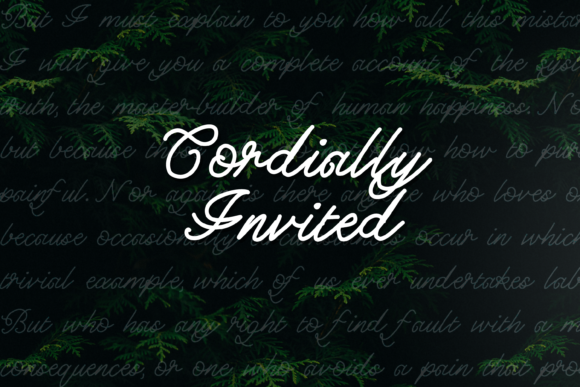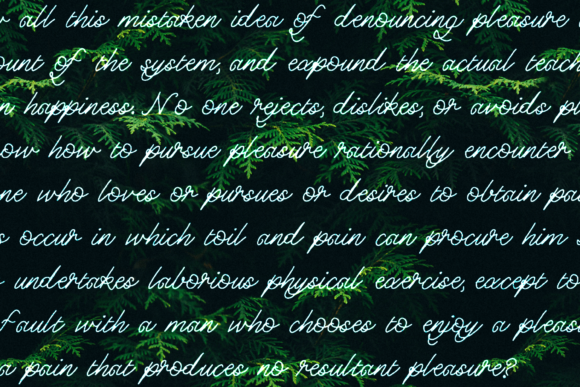
Cordially Invited Font
About Cordially Invited Font
Cordially Invited is an elegant and beautiful handwritten font. It can easily be matched to an incredibly large set of projects, so add it to your creative ideas and notice how it makes them stand out!